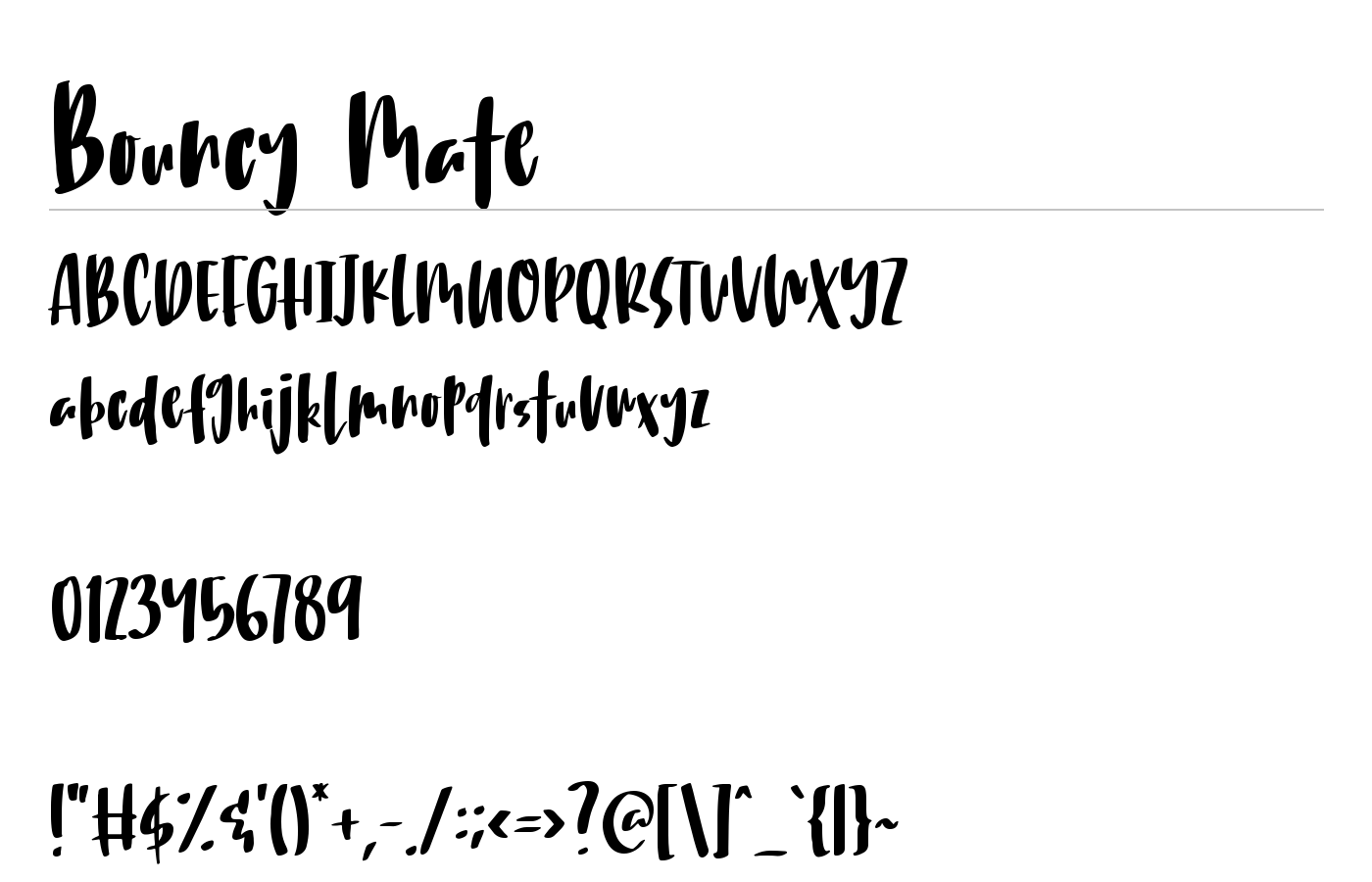
Bouncy Mate is a playful, hand-drawn script font with tall, narrow letterforms and a lively, irregular bounce that adds personality and warmth. Its bold, brush-like strokes create a friendly and informal feel, making it ideal for casual branding, children’s products, invitations, and creative projects that want to convey fun and energy. This font shines in display use where its unique character and energetic style can truly stand out.
Bouncy Mate Font
About Bouncy Mate Font
| Font family | Bouncy Mate Font |
| Designer | Dimas Prasetyo |
| Trademark | Dm Letter Studio Bandung - Indonesia |